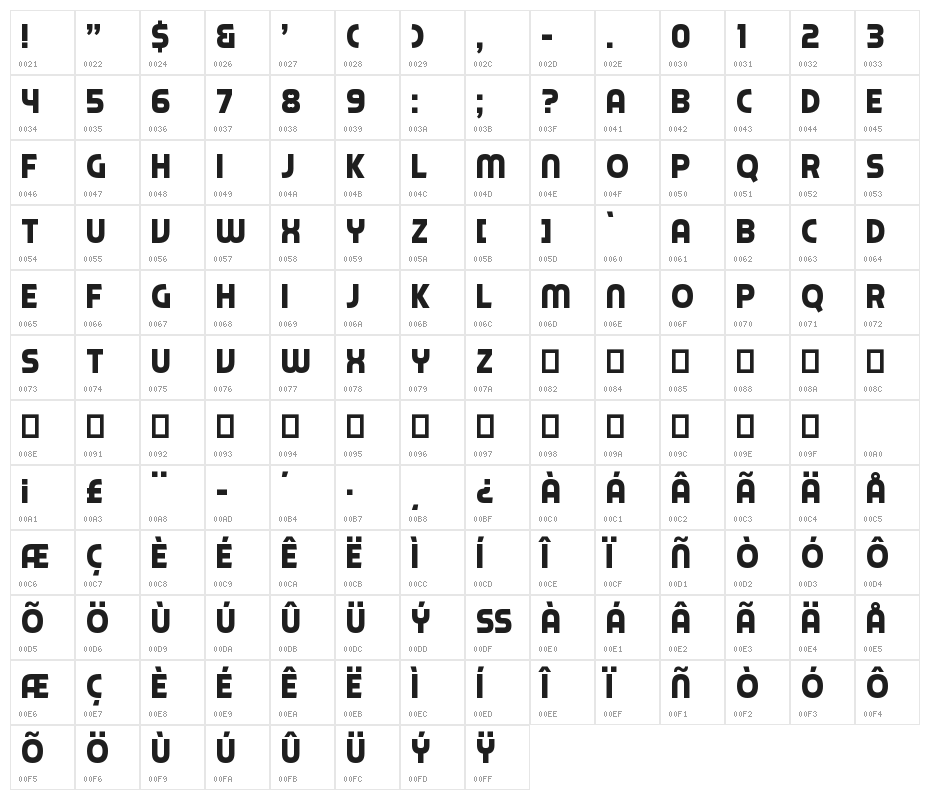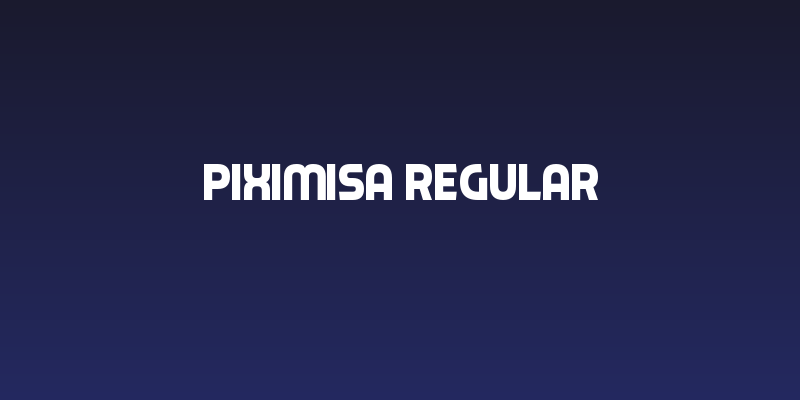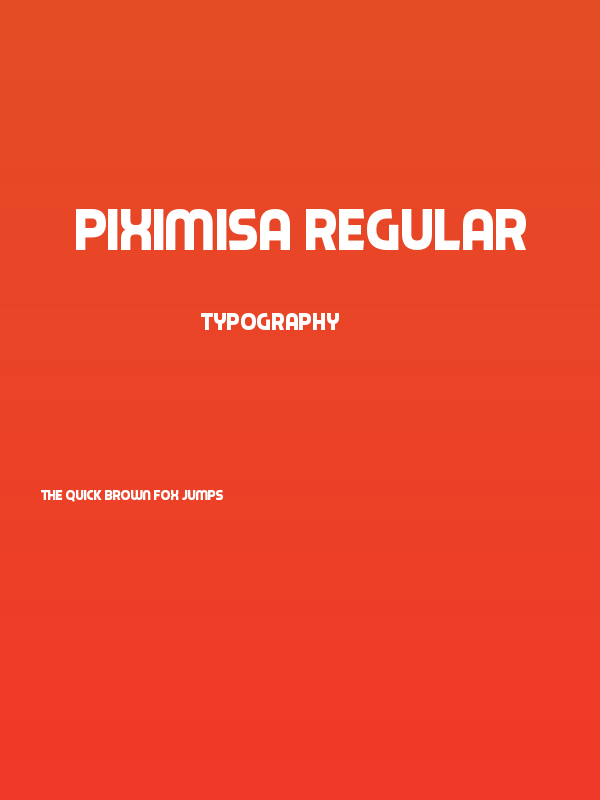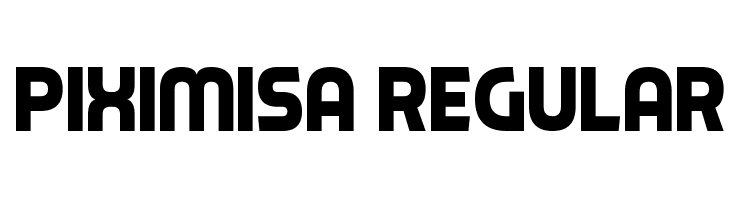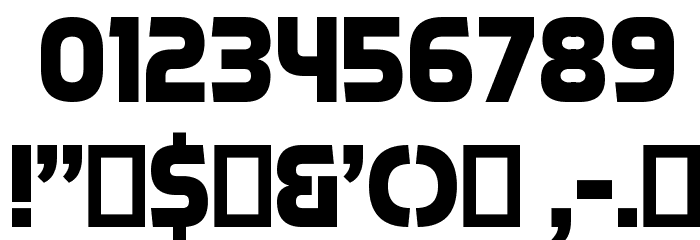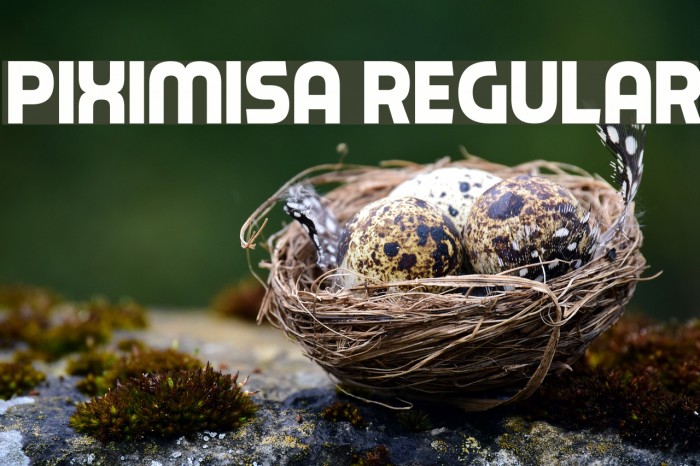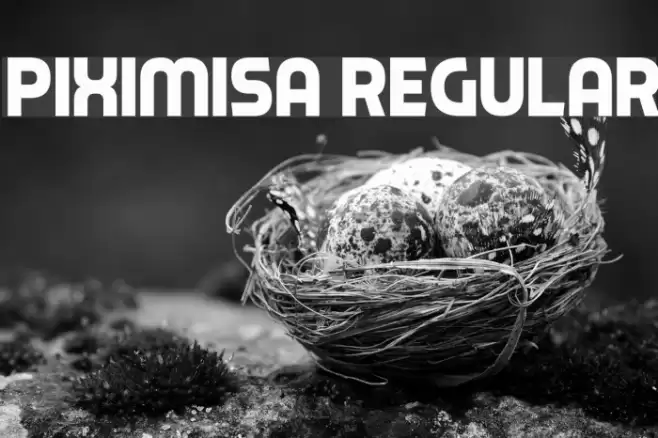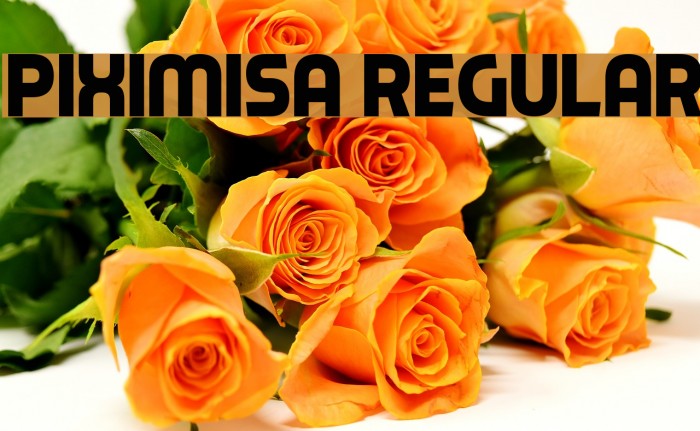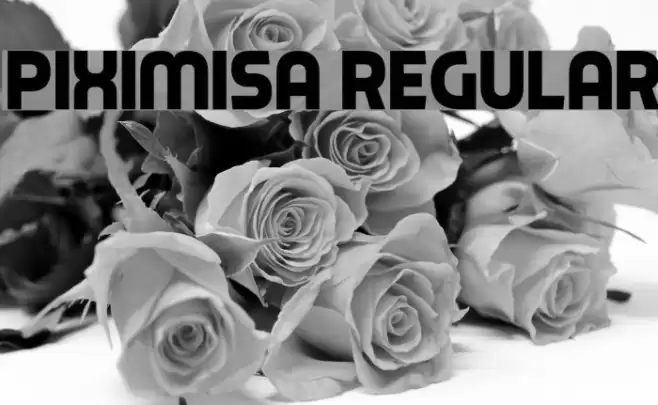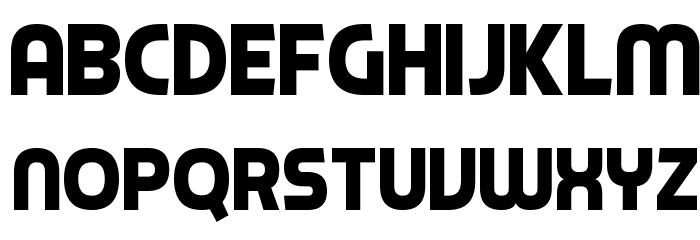
Piximisa Regular Font
Piximisa Regular Description
This font features a bold and modern design with a geometric structure. The characters are wide and have a strong presence, making them highly legible and impactful. The uppercase and lowercase letters maintain a consistent style, with rounded edges that soften the overall appearance. The numerals are equally bold, ensuring clarity and readability. Special characters are designed to match the boldness and style of the alphabet, providing a cohesive look across all elements. This font is ideal for projects that require a strong visual impact.
| Proposed Projects | Ideal for branding, headlines, posters, and digital media that require a strong visual impact. |